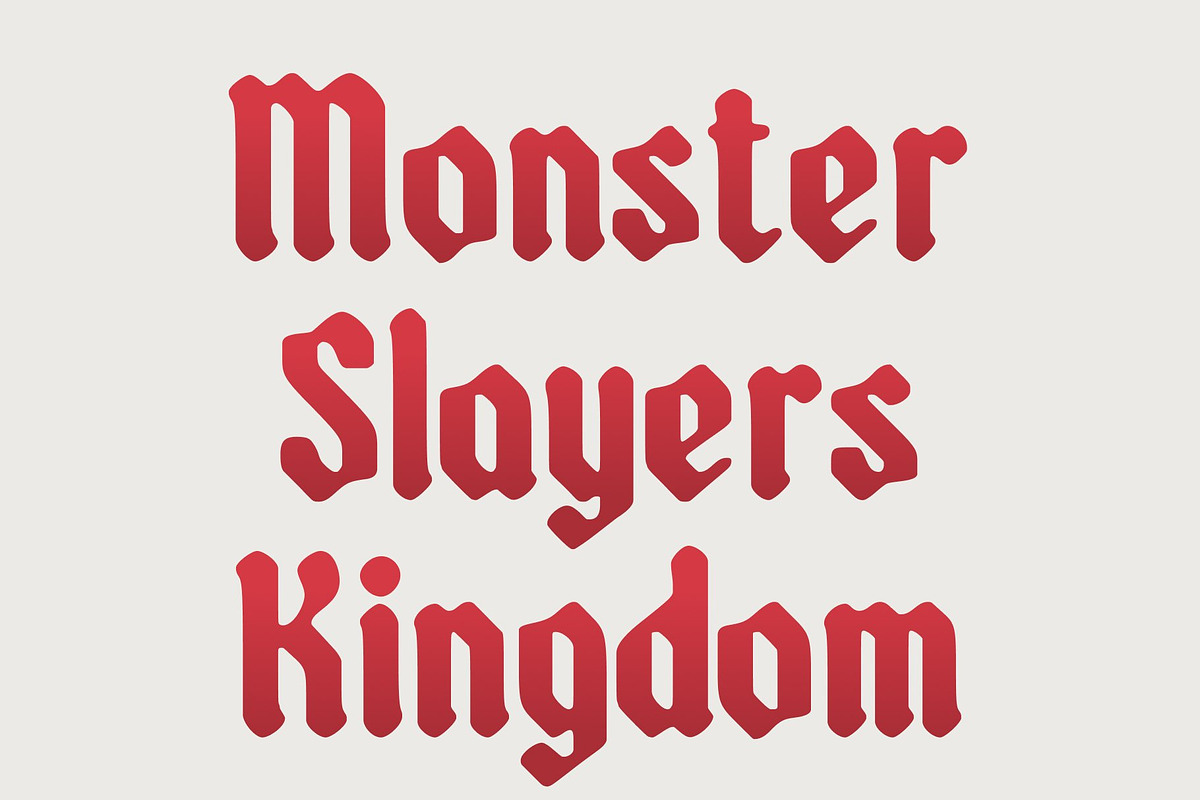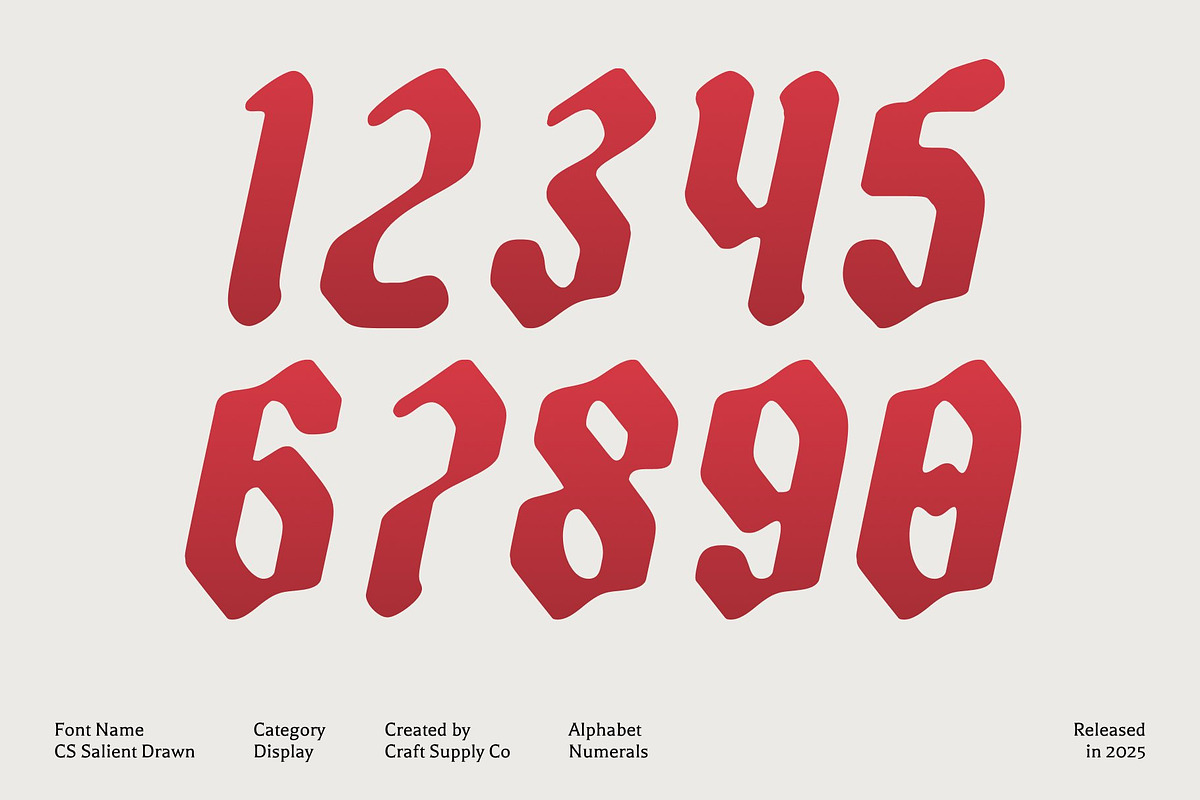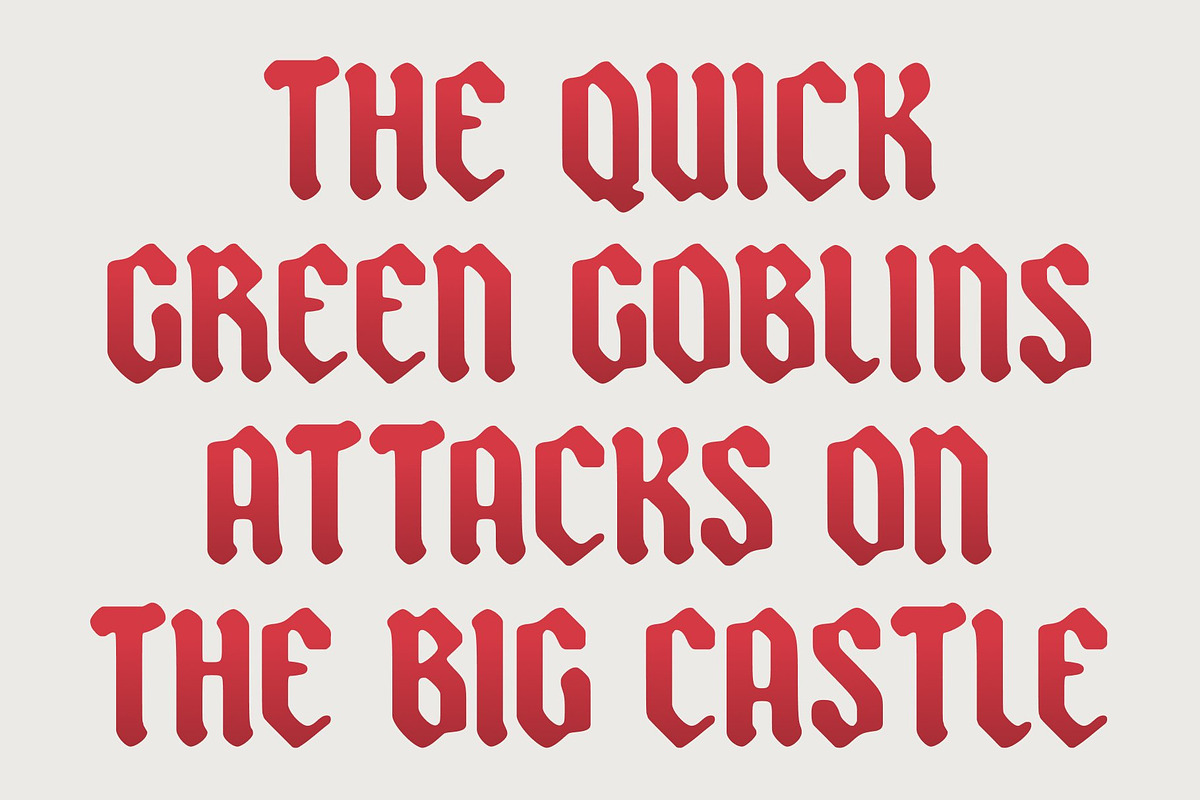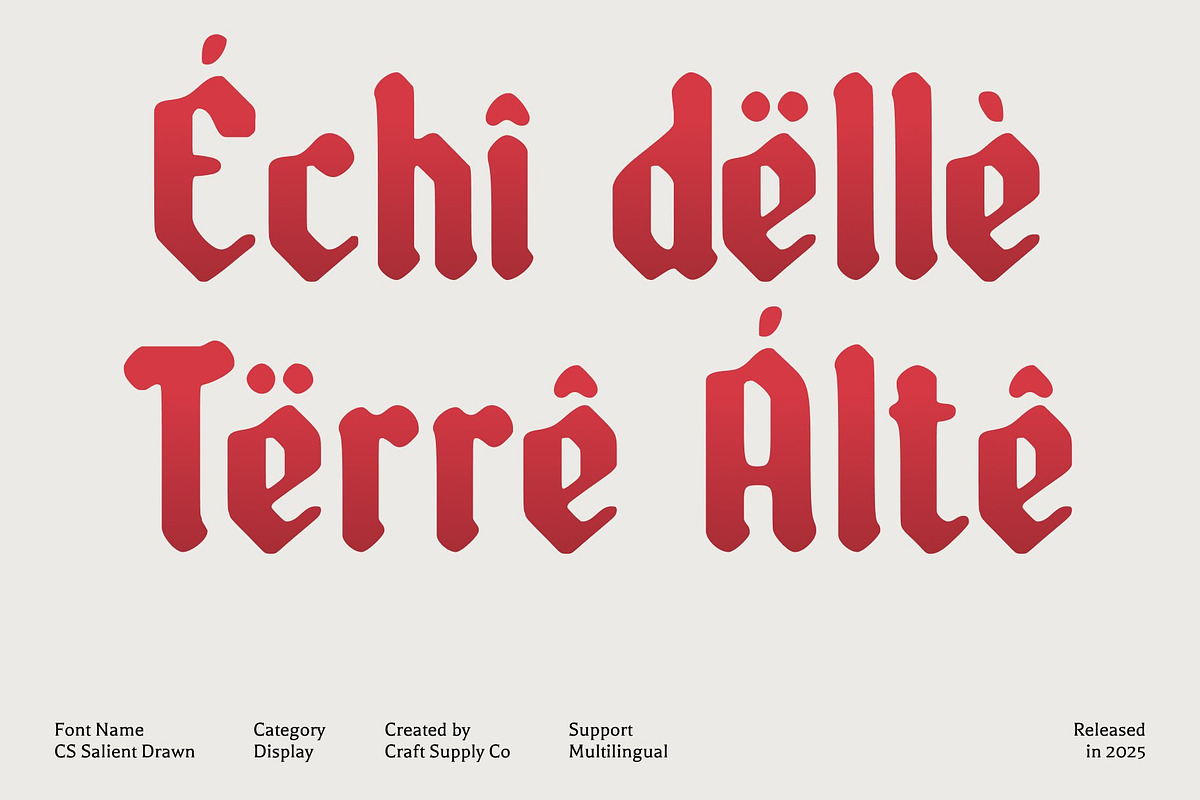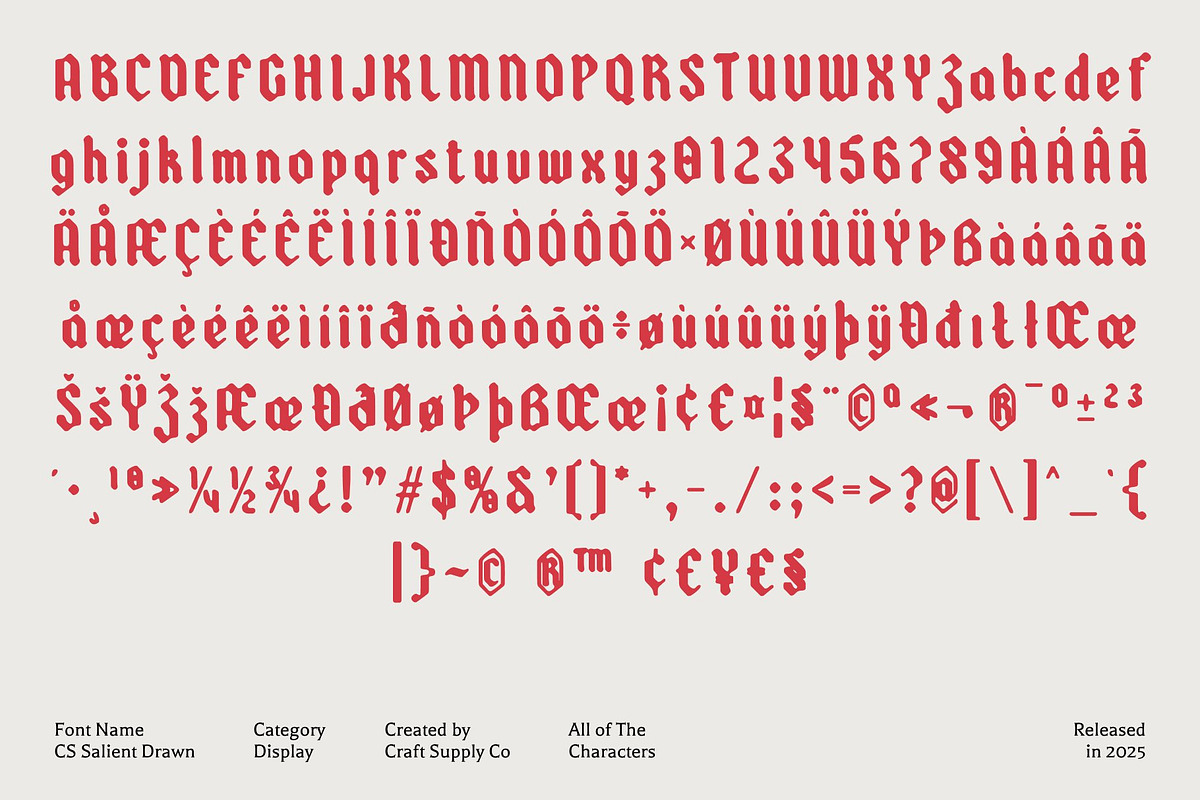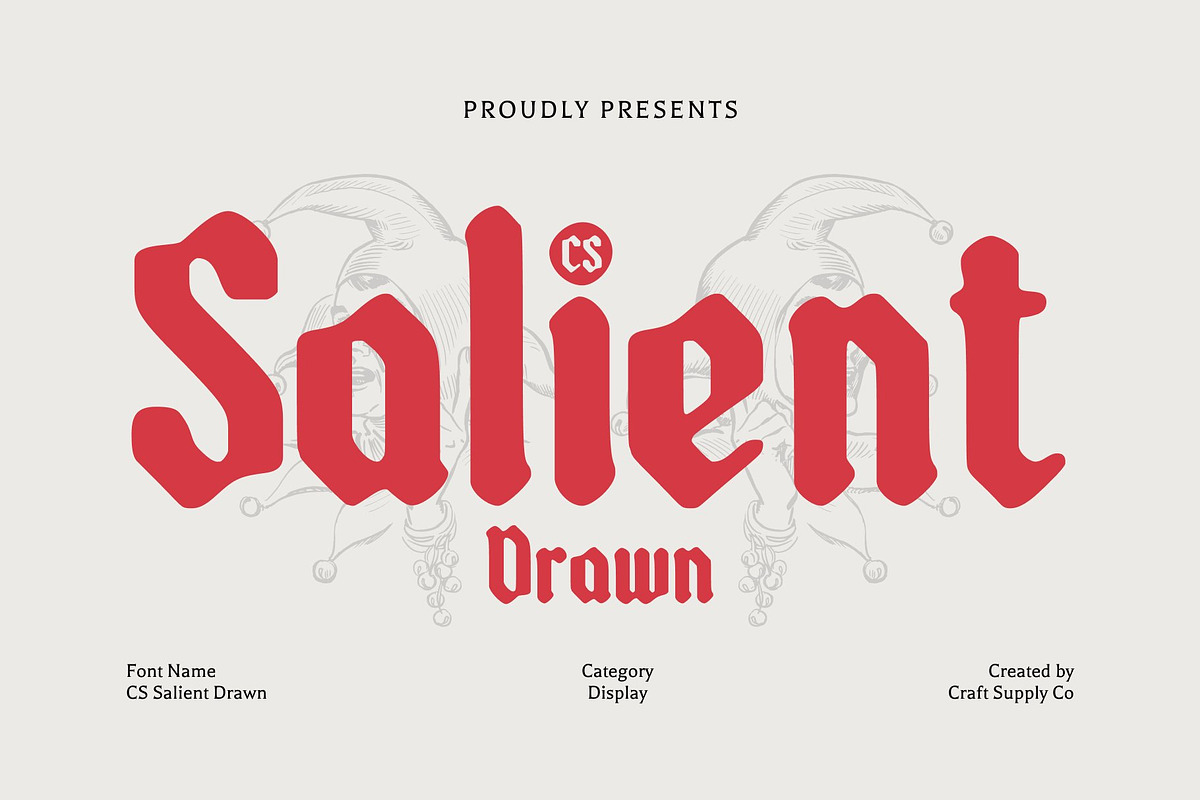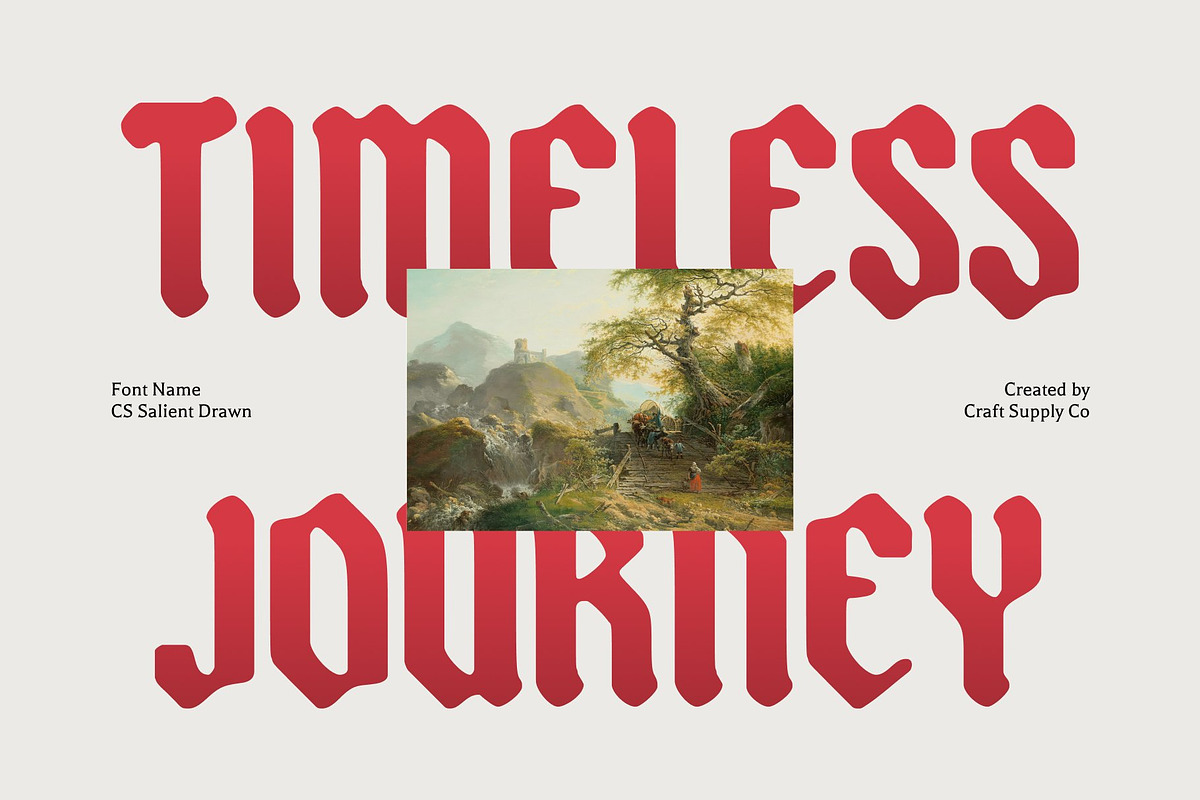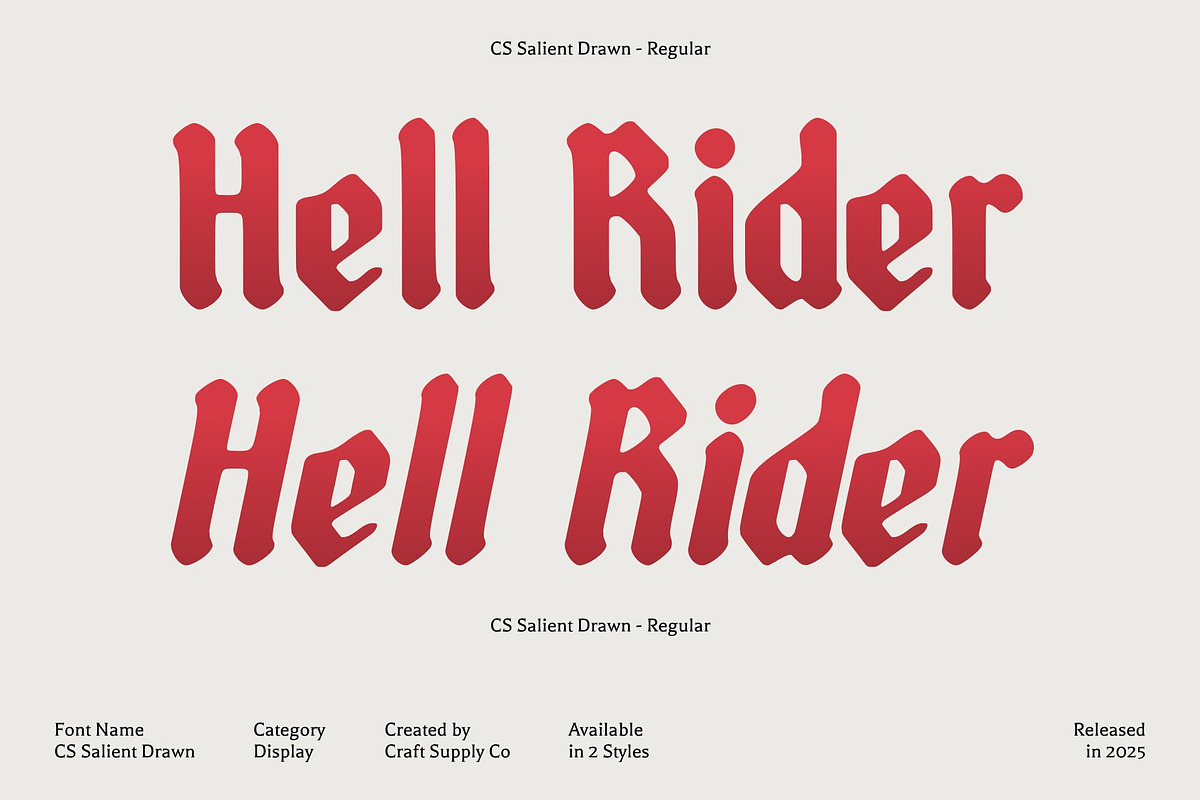
CS Salient Drawn
CS Salient Drawn – Gothic Power with Handcrafted Expression
Sharp Gothic Forms with Bold Visual Strength This is a gothic display font defined by sharp, bold letterforms that command attention. Its strong vertical strokes, angular edges, and dramatic proportions reflect classic gothic influences while maintaining a confident, contemporary presence. Each character is designed to feel solid and authoritative, creating a powerful visual impact that instantly anchors a layout.
Hand-Drawn Texture for Artistic Character The hand-drawn texture adds an expressive layer that elevates beyond traditional gothic typography. Subtle imperfections, organic strokes, and crafted details introduce a human touch, giving the font an artistic and authentic feel. This texture softens the rigid structure of the gothic forms while enhancing their emotional depth, resulting in lettering that feels alive, raw, and visually engaging.
Mysterious Atmosphere with Heritage Influence This font carries a mysterious and atmospheric tone rooted in historical gothic aesthetics. Its dramatic shapes evoke themes of heritage, folklore, and timeless storytelling, making it especially effective for designs that aim to communicate depth and intrigue.
Ideal for Dramatic and Statement-Driven Designs Designed for impactful use, excels in branding, dramatic posters, book titles, album artwork, and editorial headlines. Its bold presence enhances visual identities that seek to convey strength, mystery, and artistic confidence. Whether applied to dark-themed branding or expressive creative projects, delivers a compelling mix of power, heritage, and handmade artistry that leaves a lasting impression.
- CS Salient Drawn Regular
- CS Salient Drawn Italic